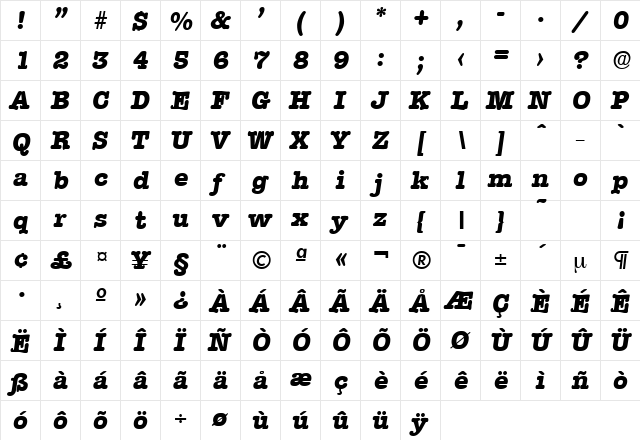
Design Context for Typewriter-Serial-ExtraBold Typeface
Typewriter-Serial-ExtraBold brings the precise, column-aligned rhythm of monospaced typography to designs that value technical clarity and systematic order. The dynamic lean of this cut emphasises speed and emphasis in any layout. The heavy weight commands attention and anchors typographic hierarchies.
Pro Tip: Use Typewriter-Serial-ExtraBold with slightly increased line-height for extended reading — fixed-width spacing can feel dense in longer passages without extra breathing room.